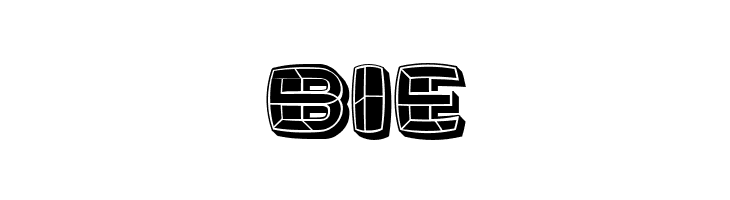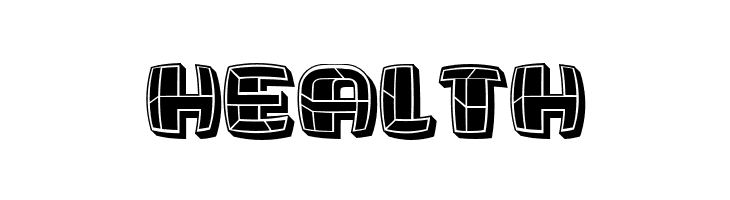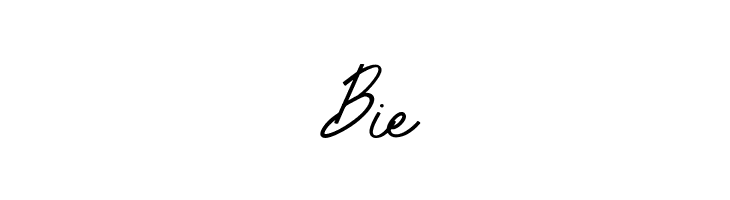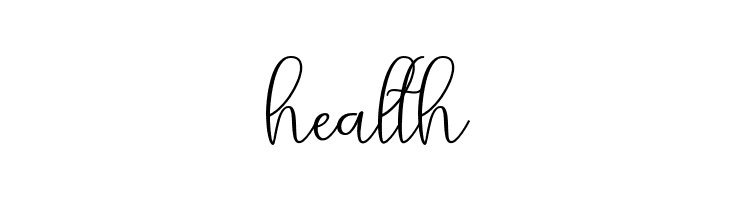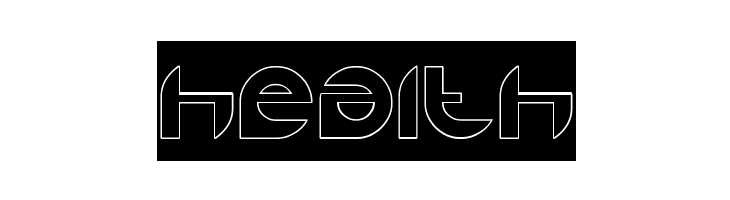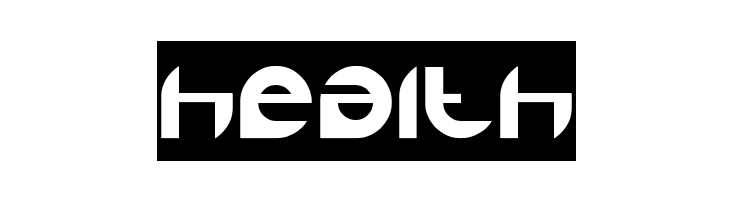
• Alexandra Magnolia
A cursive, handwritten-style font with elegant, flowing strokes.
• Alexandra Orleans
An elegant script font with intricate, flowing lines and decorative flourishes.
• Alexandra Personal Use Regular
• Alexandra Regular
A bold, geometric font with a three-dimensional, outlined design.
• Alexandra Signature Regular
A casual, handwritten font with a fluid and elegant style.
• Alexandra Signature Regular
A casual, handwritten font with thin, flowing strokes and elegant style.
• ALEXANDRA-HOLLOW
A hollow, geometric font with a futuristic and modern aesthetic.
• ALEXANDRA-HOLLOW-INVERSE
A futuristic, hollow, and geometric font with a consistent stroke width.
• ALEXANDRA-INVERSE
A bold, futuristic font with geometric shapes and sharp angles.
• AlexandraDemo
A graceful and elegant script font with fluid, cursive strokes.